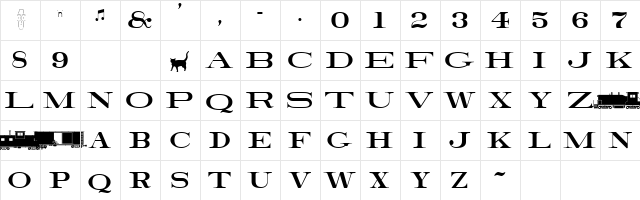
RailroadRoman Regular
Design Context for RailroadRoman Typeface
RailroadRoman takes a measured approach to typography — its balanced proportions and neutral character make it a reliable workhorse for both digital and print work.